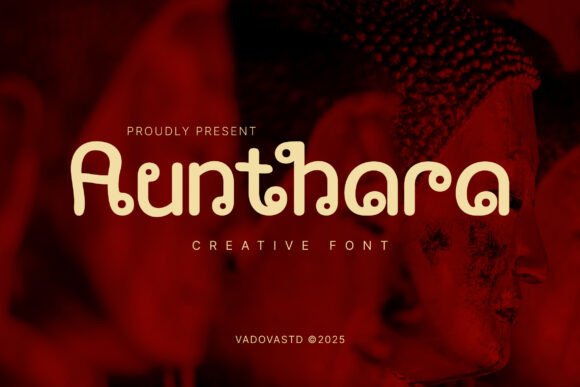
I still remember the frustration of working on a project, hours spent crafting the perfect design, only to realize that the font I chose didn’t quite fit the vibe I was going for. It was for a client who wanted a distinctly Asian-inspired aesthetic, and I was on a mission to find the perfect match. That’s when I stumbled upon Aunthara Font, a decorative display typeface that instantly caught my eye.
First Impressions: Aunthara Font Review
As I explored Aunthara Font, I was immediately drawn to its unique blend of traditional Asian aesthetics and modern design sensibilities. Here are a few things I love about this font:
- ✨ Rounded forms and soft terminals that give it a friendly, approachable feel
- ✅ Distinctive ornamental details that add a touch of cultural nuance
- 💫 Smooth curves that make it perfect for headlines and titles
Of course, no font is perfect, and Aunthara Font does have a few quirks:
- 🤔 Limited use for long-form text due to its decorative nature
- Experiment with OpenType features like stylistic alternates and glyphs to add visual interest
The Story Behind Aunthara Font
Aunthara Font was designed with the goal of capturing the essence of traditional Asian aesthetics in a modern, digital context. The designer drew inspiration from various cultural and artistic sources, including:
- Traditional Asian typography and calligraphy
- Ornate architectural details and patterns
- Natural forms and organic shapes
| Font Name | Aunthara Font |
| Author | Vadova Std |
| What is Aunthara Font best suited for? | Aunthara Font is ideal for headlines, titles, and creative layouts where a decorative, eye-catching font is desired. |
| Can I use Aunthara Font for long-form text? | While Aunthara Font can be used for short paragraphs, it’s not recommended for long-form text due to its decorative nature. |
| Is Aunthara Font available in different weights or styles? | Aunthara Font is available in a single weight, but it features a range of stylistic alternates and glyphs to add visual interest. |